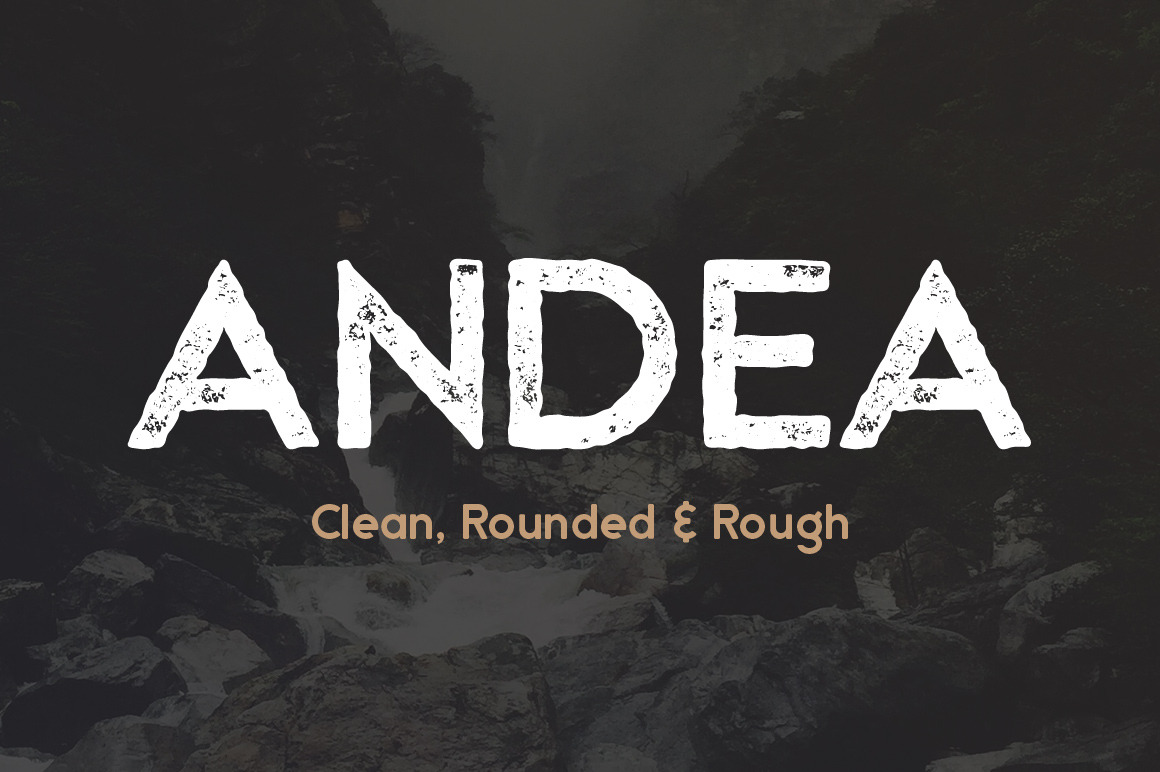
Andea - Geometric Sans Serif Font
Andea is our brand new geometric sans typeface, it is a strong semi-bold weight, that is perfect for display purposes, such as headlines and titles. Andea includes uppercase and lowercase characters, numbers, accents and common symbols.
It has 3 variations:
- 'Clean' is the base style, it is crisp and clean
- 'Rounded' has subtle rounded corners for a softer appearance
- ‘Rough’ is a grungy, ink stamp style version of the font